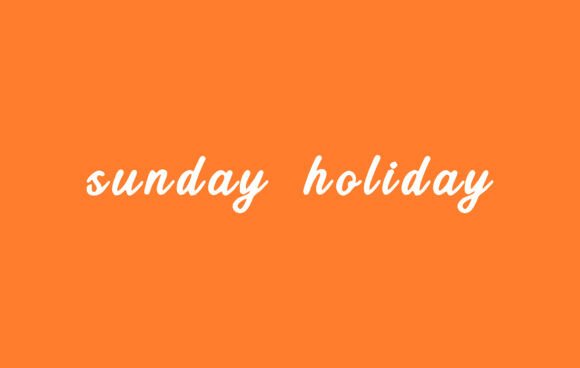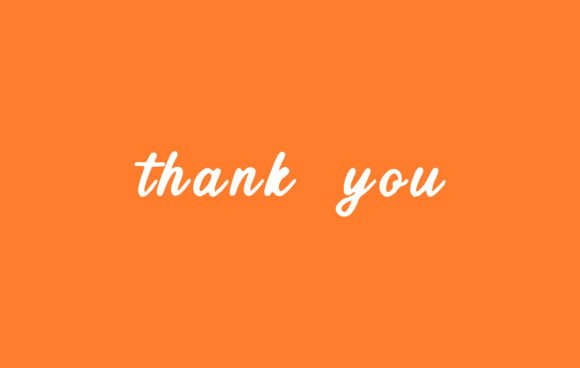
Introduction to Quantumcode Font
QuantumCode font is an authentic handwritten font with a romantic touch.
Key Features of Quantumcode Font
Why Choose Quantumcode Font?
Quantumcode Font offers exceptional quality and versatility, making it a valuable addition to your design toolkit. Whether you’re creating for personal projects or commercial use, Quantumcode Font delivers professional results.